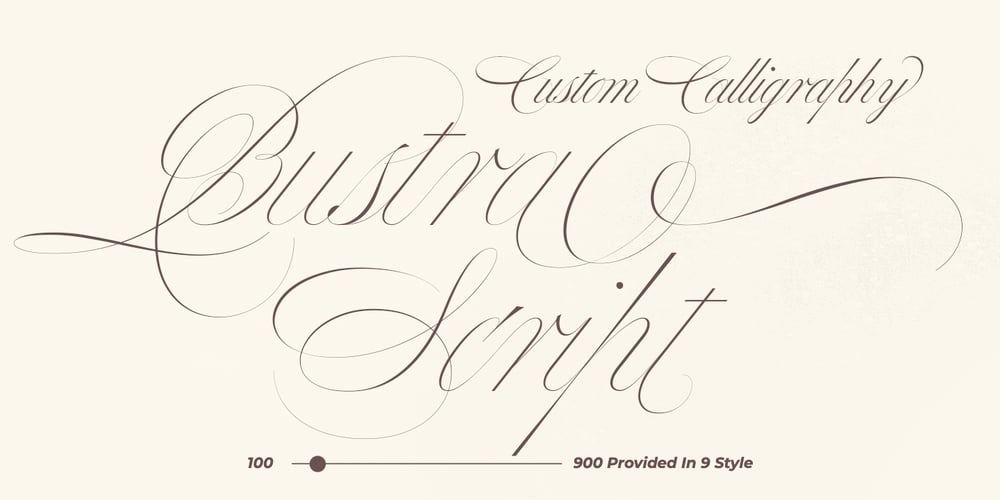
Bustra Script Pro Font Family was designed by Sukjana Almunandar and published by Alcode. Bustra Script Pro contains 10 styles and family package options. Bustra Script is a luxurious and elegant font family that comes in 9 different thicknesses plus a variable file format that will bring a unique style and classic look to your designs.Packed with on-trend ligatures and custom characters, it will make the Bustra Family usable in any design project and works perfectly to pair with other fonts.With this font you can create designs such as wedding media, book covers, greeting cards, logos, branding, business cards and certificates, even for any design work that requires a classic, formal or luxurious look.Try Bustra Script Family, Enjoy the richness of OpenType features and let her fun and elegant excitement make you happy and enhance your creativity! You can use this font very easily.• Included Multilingual Support